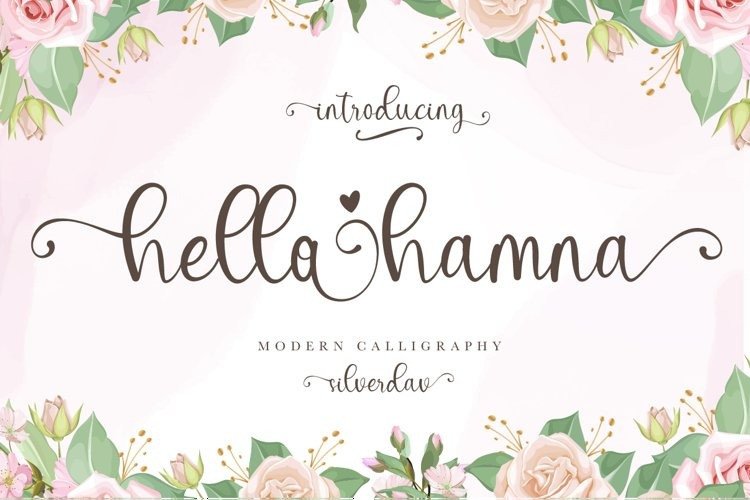
Hello Hamna Calligraphy Font
Hello Hamna Font, is an elegant modern calligraphy typeface, which supports Extended Latin and Greek character set. Equally important is the fact that the font has diacritics for multilingual support.
Of course, with this typeface, you have access to a complete Greek set of characters, with diacritics and Greek ligatures. Hello Hamna is a high-quality calligraphy font that can infuse any project with glamorous vibes.
Hello Hamna is the perfect wedding font if you want to achieve a fairy-tale style on your wedding invitation. For a whimsical style you can pair the font with a strong color palette and metallic papers.
Of course, this modern script font is perfect for your graphic design needs like social media quotes, blog headers, posters, stationery, and why not branding, packaging, and logotypes.
In addition, this calligraphy font is ideal for the fashion and apparel industry, if you want to achieve a glamorous chic, yet modern style.